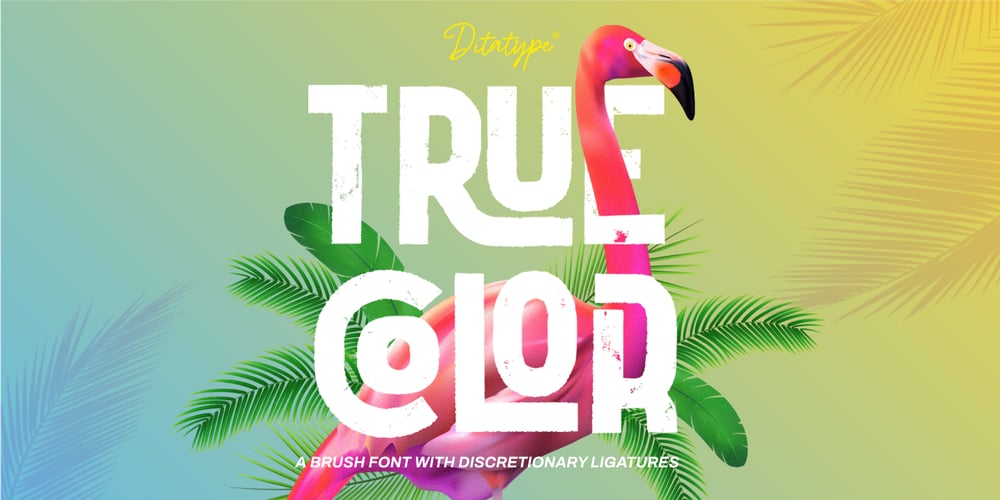
Truecolor Font Family was designed by Donis Miftahudin and published by Ditatype. Truecolor contains 1 styles and family package options. Truecolor is a bold and distinctive brush font that commands attention. The characters in this font are characterized by their robust, square forms, which give the font a sense of solidity and reliability. Each letter is meticulously designed to maintain a cohesive and balanced appearance, adding an air of authority and visual impact to your text. It has the power to transform your text into a striking focal point, ensuring that every word is seen and remembered. In addition, you can also enjoy the features here.Features: Ligatures Stylistic Sets Multilingual Supports PUA Encoded Numerals and Punctuations Truecolor fits in headlines, logos, posters, flyers, branding materials, print media, editorial layouts, and many more designs. Find out more ways to use this font by taking a look at the font preview.Thanks for purchasing our fonts. Hopefully, you have a great time using our font. Feel free to contact us anytime for further information or when you have trouble with the font. Thanks a lot and happy designing.